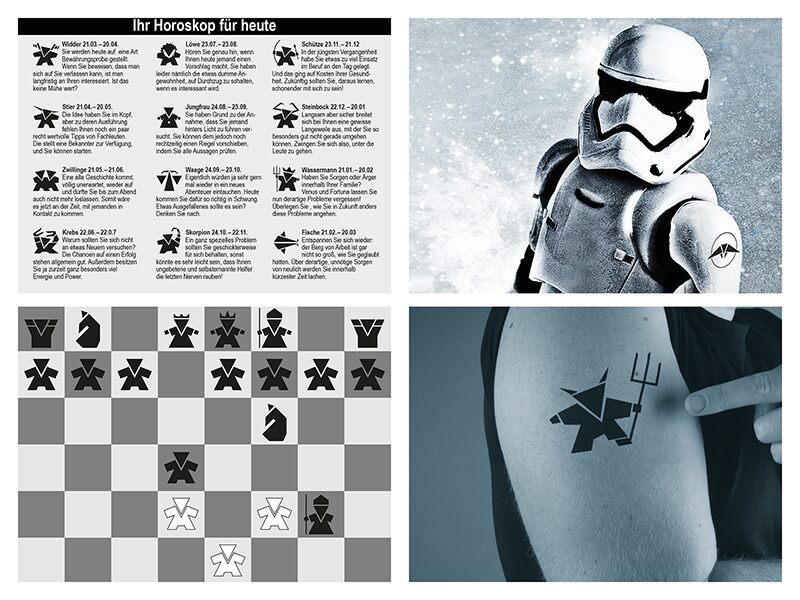
Damgram Next, designed by Ekkehard Beck, is a modern update to the original Damgram font from 2012. This dingbat font captivates with its bold geometric designs, each character meticulously renewed and set on a precise square base. Visually striking, Damgram Next boasts an impressive array of intricate symbols that evoke abstract forms and imaginative figures.
The font's unique aesthetic makes it ideal for creative projects that demand attention-grabbing elements. It’s particularly well-suited for use in graphic design, branding materials, posters, and digital art where visual impact and originality are paramount. Damgram Next stands out as a versatile tool for designers looking to infuse their work with contemporary flair and distinctive style.
The font now has 112 characters and mainly includes:
Zodiac signs
Chess
Combat